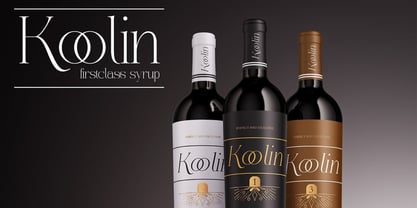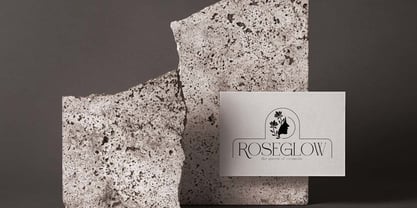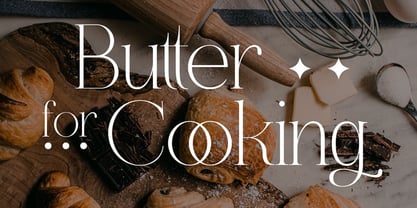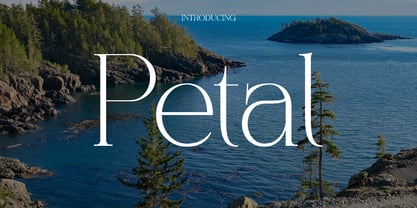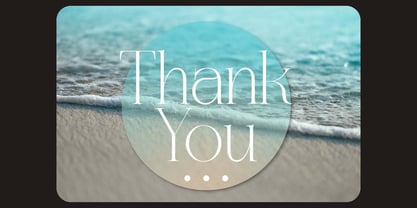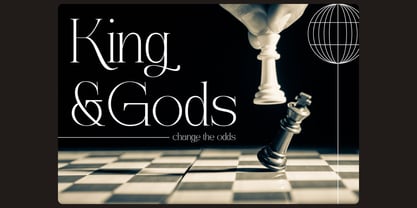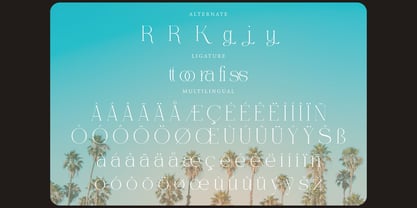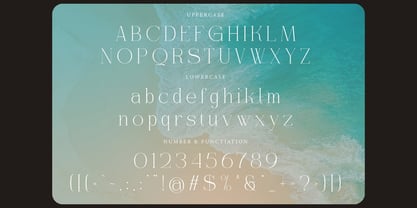
Petal
by Only Fonts
The Petal Font Family was designed by Olivia Love and published by Only Fonts. Petal contains 1 styles. More about this family
Petal is an elegant serif typeface that radiates grace and timeless sophistication, inspired by the soft beauty of blooming petals. Designed with refined serifs, smooth curves, and harmoniously balanced proportions, Petal brings a sense of polished luxury to any project. Its classic yet modern style effortlessly elevates high-end branding, editorial layouts, luxury packaging, and wedding invitations, providing a touch of class and refinement wherever it appears.​ The signature features of Petal include stylish ligatures, a complete set of uppercase and lowercase characters, numerals, and multilingual support—making it as versatile as it is beautiful. Every letter feels carefully sculpted, allowing your designs to embody tradition while speaking to contemporary tastes. Petal shines in both print and digital applications, lending an air of understated sophistication to logos, publication titles, event stationery, and more.​ Whether you’re aiming for romantic invitations, premium product packaging, or expressive editorial headlines, Petal’s graceful aesthetic ensures your text stands out and feels distinguished. Features: – Uppercase & Lowercase – Symbols & Punctuation – Numerals – Ligatures – Multilingual Support Perfect For: Branding - Editorial Design - Invitations - Packaging - Luxury Logos - Wedding Stationery - Headlines Petal – A sophisticated serif font that blends classic elegance and modern versatility for exceptional designs.
Designers: Olivia Love
Foundry: Only Fonts